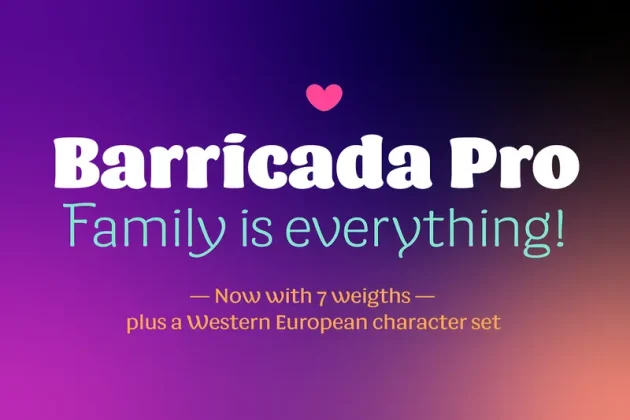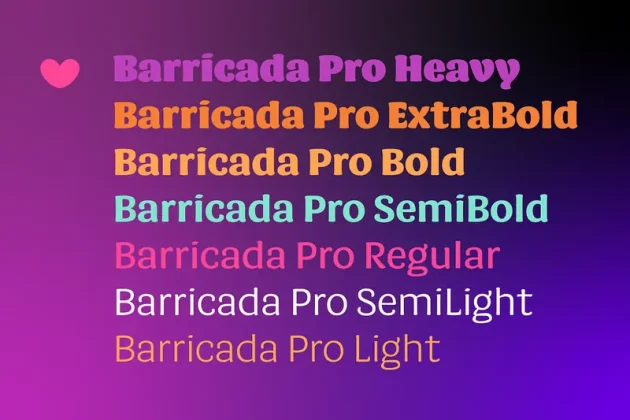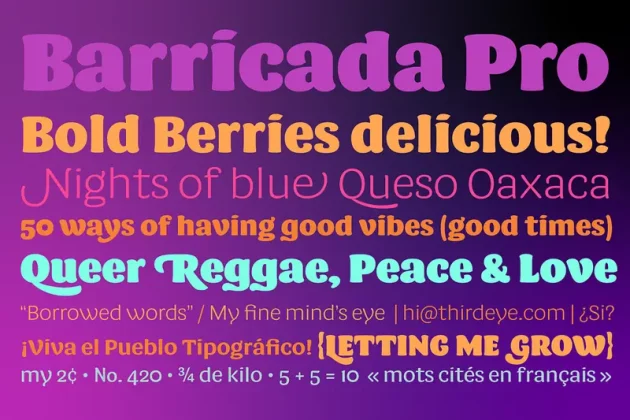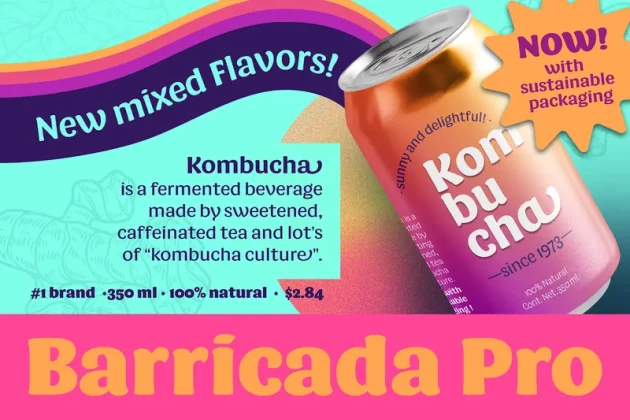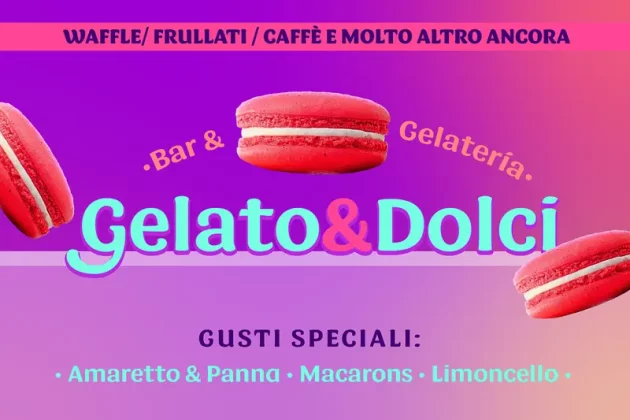
About Barricada Pro Font
Barricada, designed by Elí Castellanos, is a loud-voiced typeface with small counters that gives an interesting strong weight. Moreover, it has a solid structure providing strength. Its curved serifs and swashes give a touch of softness and make the letters a little playful.
Fifteen years of beautiful uses covering designs all over the world have led to Barricada Pro being expanded and refined, making it even better.
The font now includes seven static weights and a variable file, enhancing its versatility. Its design makes it perfect for branding and packaging, providing both a striking and legible text. This is the right option to set a fresh and solid text.